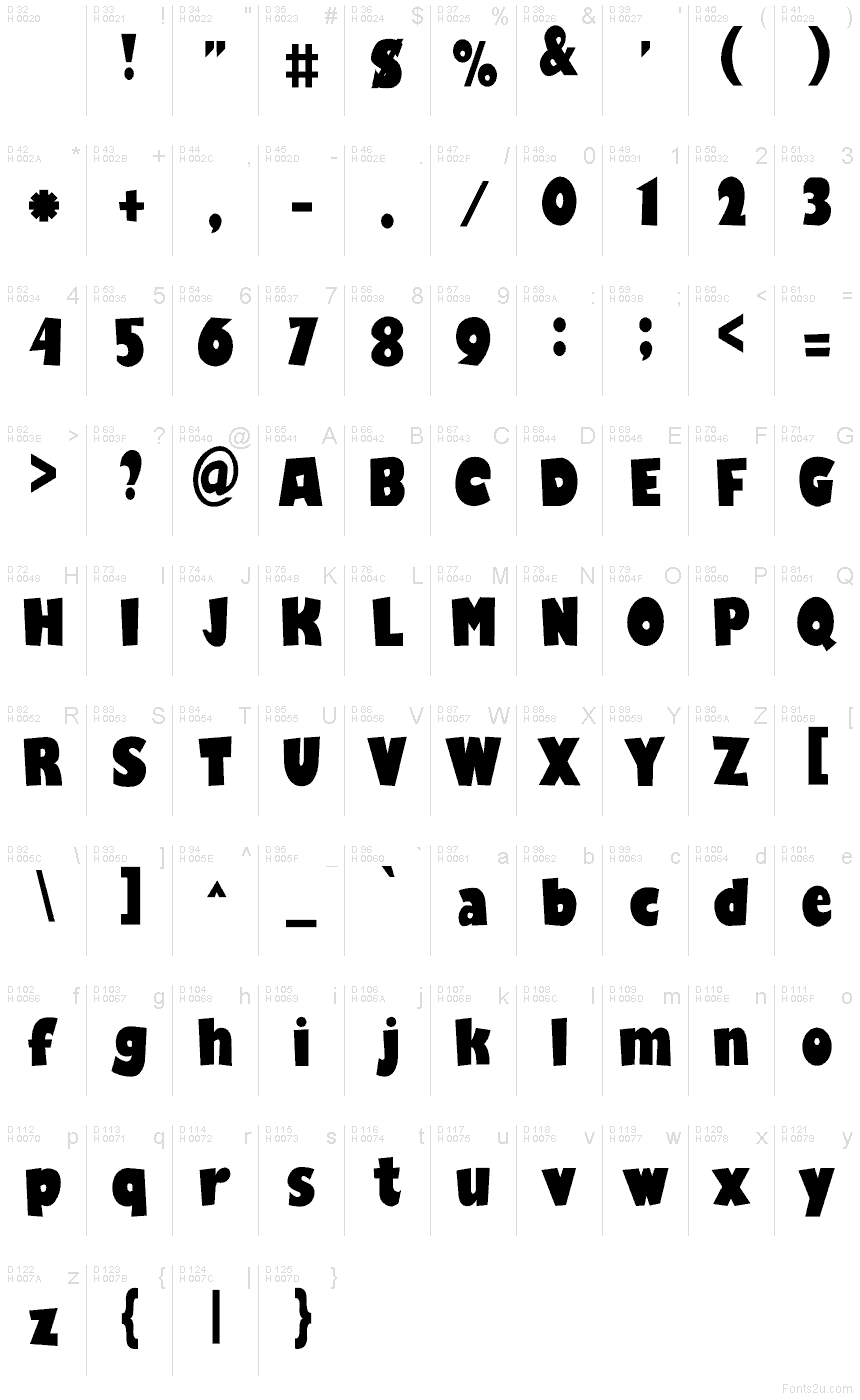
Love Comic
Love Comic font by Erik Studio is a free cartoon display font. Big, bouncy letters with chunky curves and a friendly wobble give it a hand-cut, sticker-like feel—bold enough to shout, soft enough to smile. The strokes feel inky and slightly squished, so headlines pop without turning shouty, and the rhythm stays playful even at large sizes.
Using Love Comic, you’ll nail kids’ book covers, comic panels, birthday invites, classroom posters, snack packaging, game titles, and YouTube thumbnails. This free font shines when you keep tracking tight and scale it up for punchy, signboard clarity. Pair it with a simple, unobtrusive sans for body copy to let the bubbly forms lead the show.